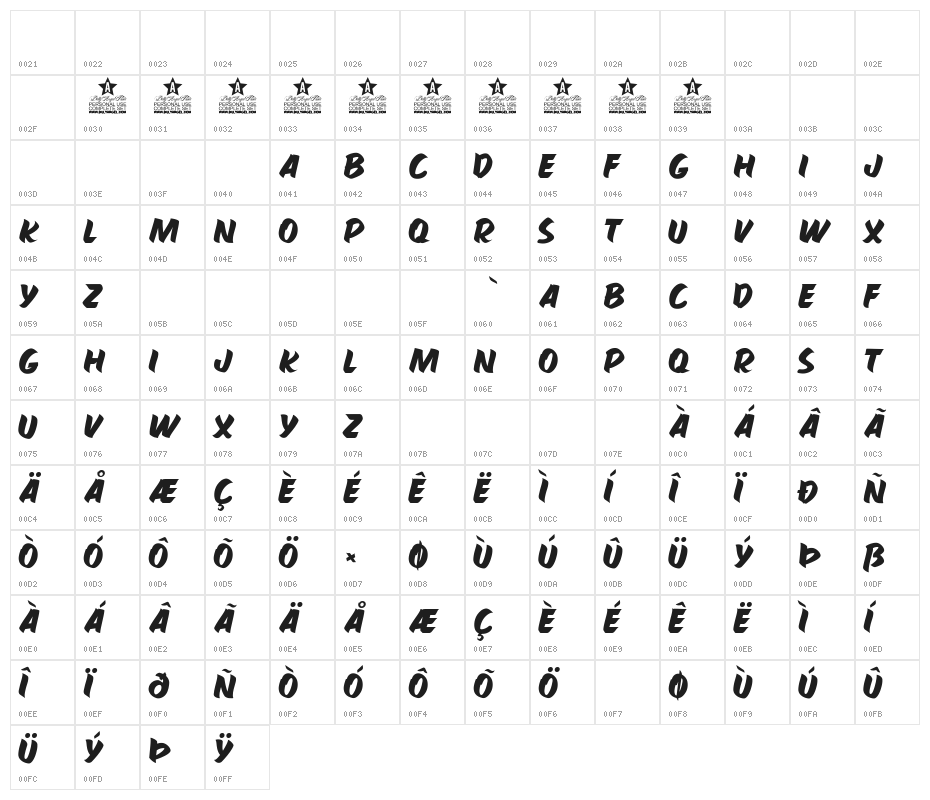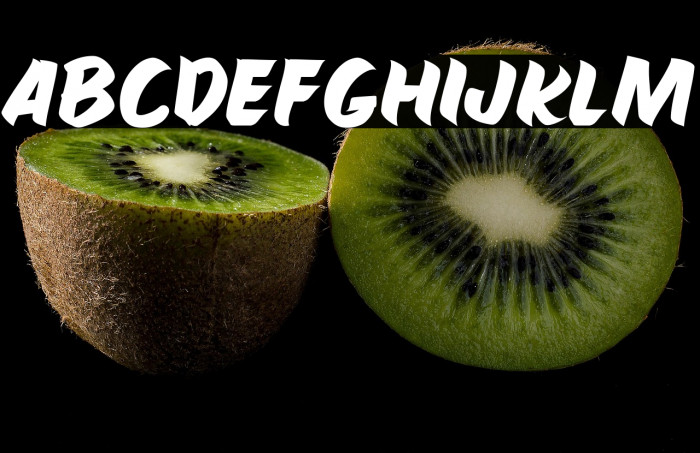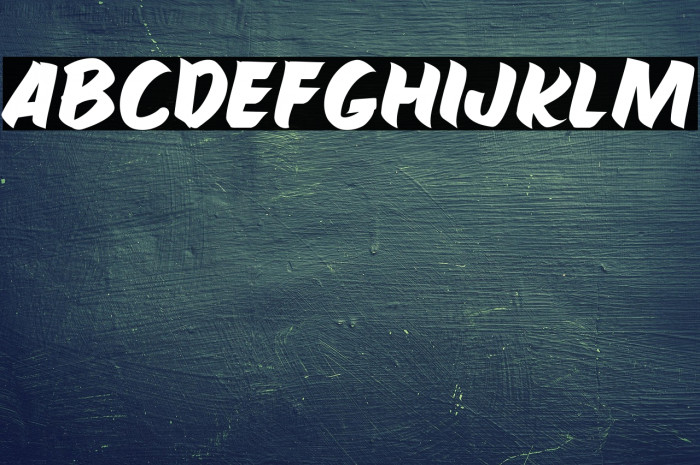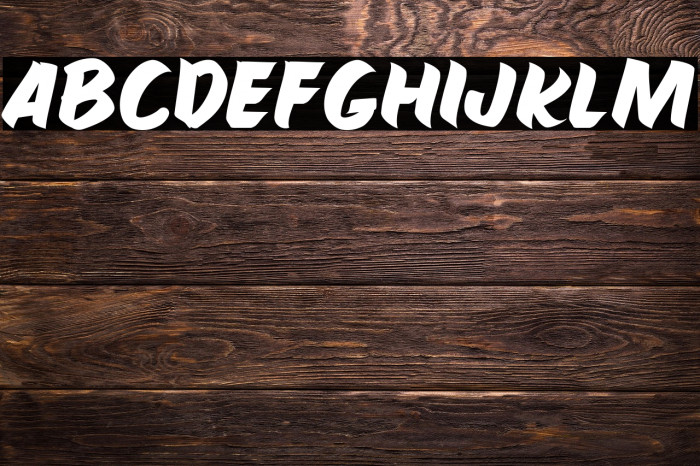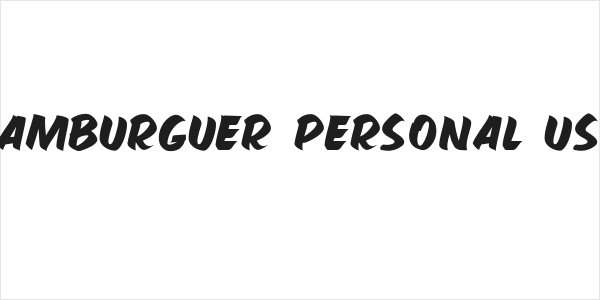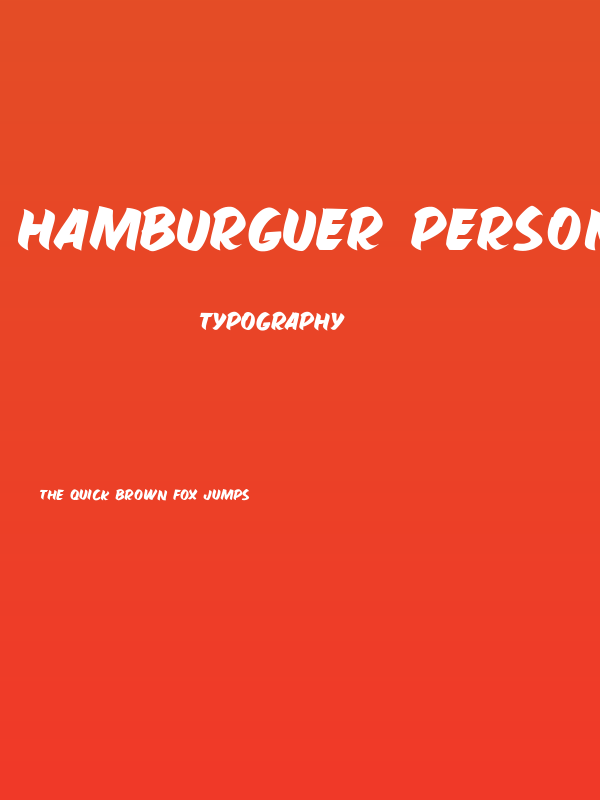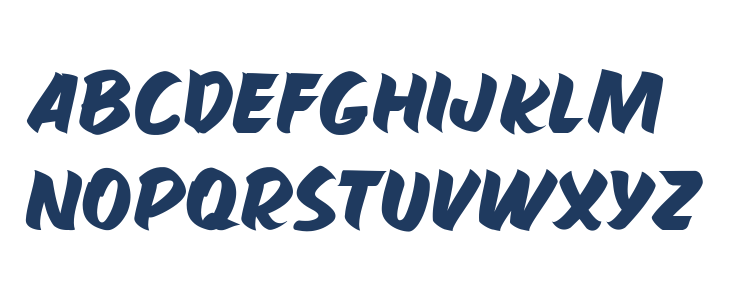
HAMBURGUER PERSONAL USE Font
HAMBURGUER PERSONAL USE Description
This font features bold, dynamic strokes with a brush-like appearance, giving it a lively and energetic feel. The characters are slightly slanted, adding to the sense of movement and fluidity. The uppercase letters are prominent and eye-catching, making them suitable for impactful headlines or titles. The overall style is modern with a touch of artistic flair, making it versatile for various design projects. The font's boldness ensures readability while maintaining a unique, expressive character.
| Overall Style | Modern, Artistic |
| Proposed Projects | Ideal for branding, posters, headlines, and any design requiring a bold, artistic touch. |